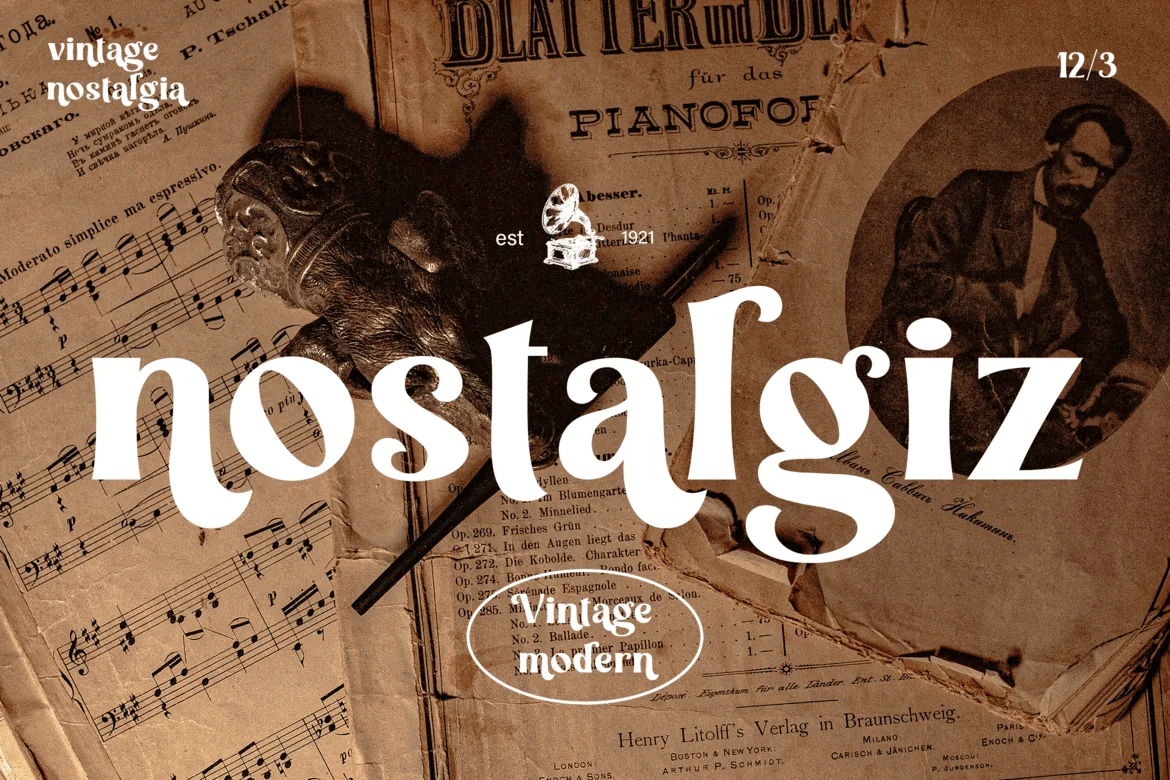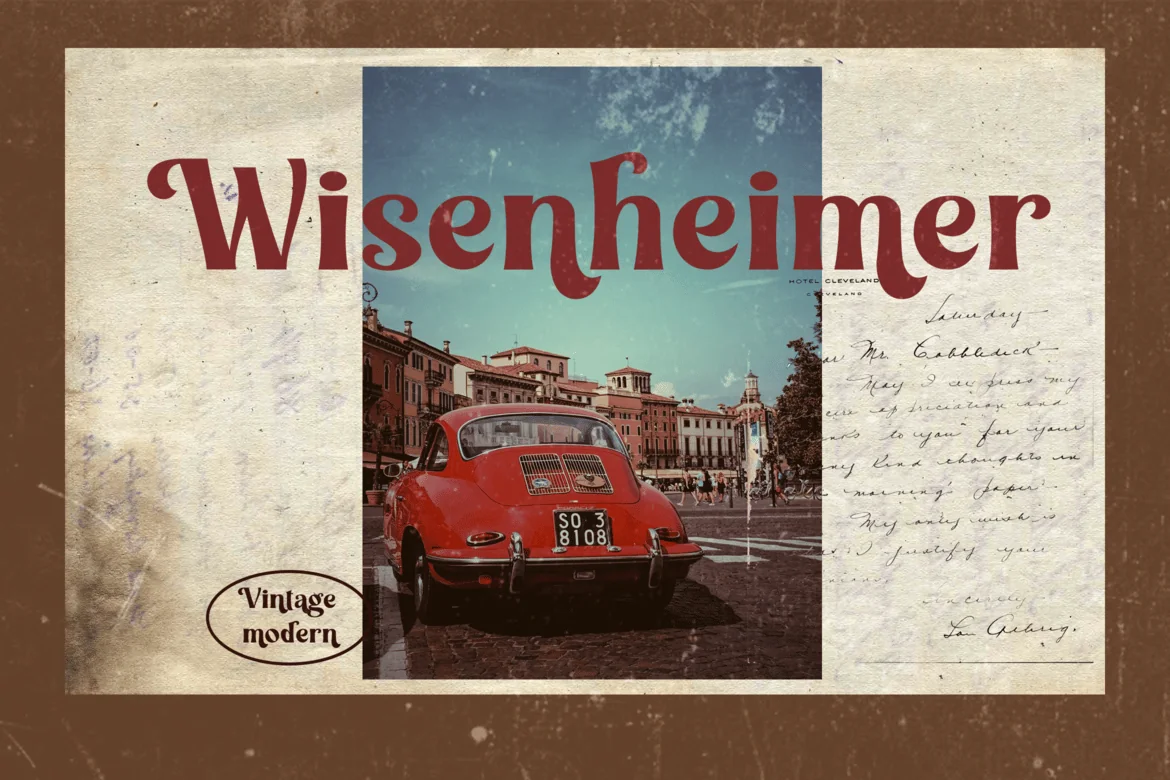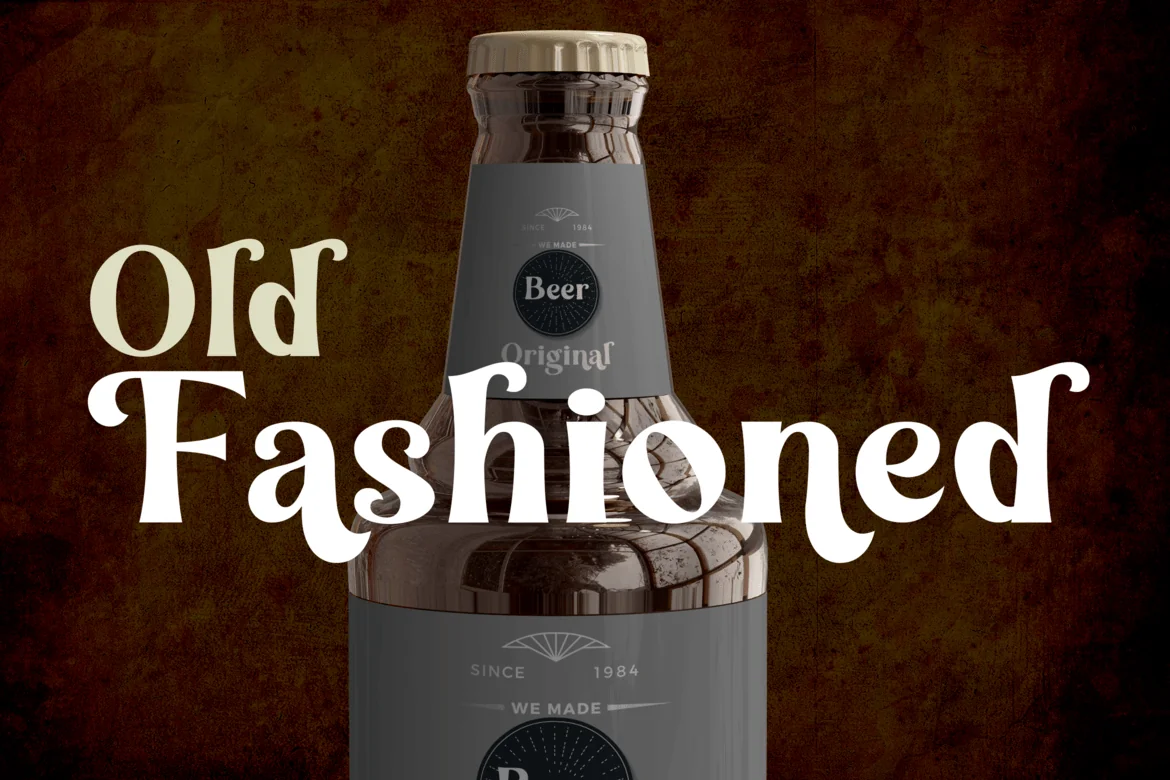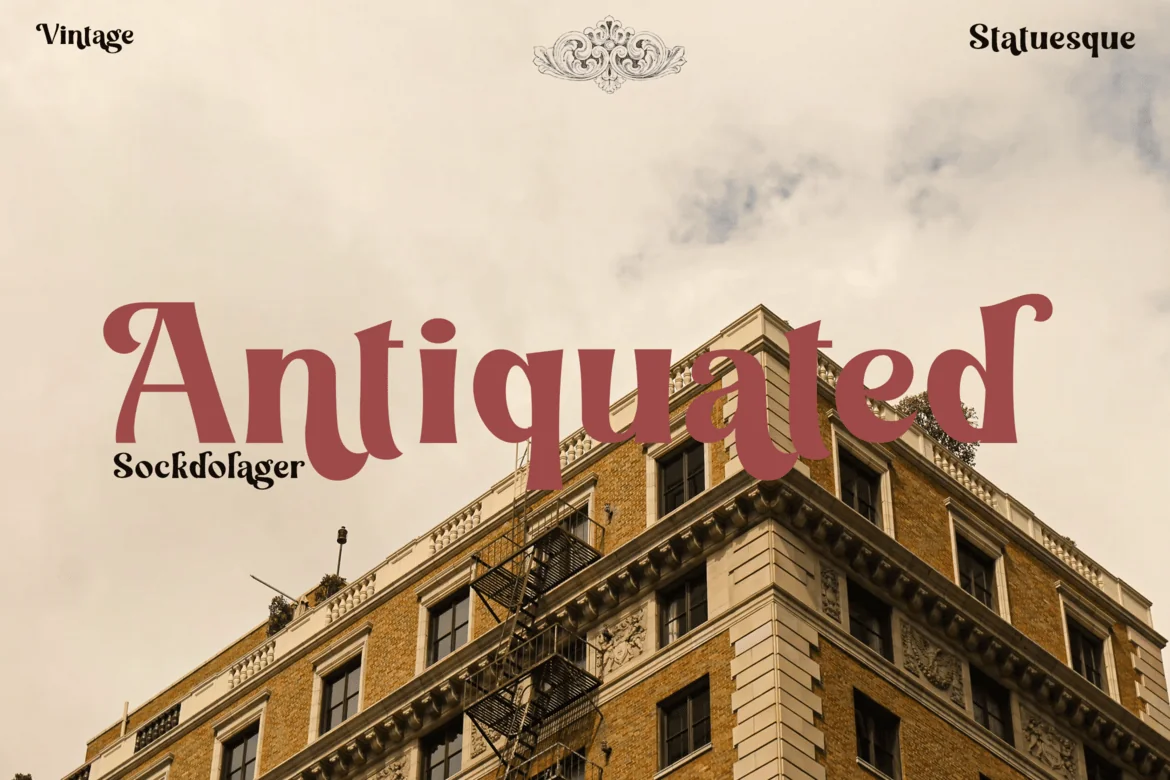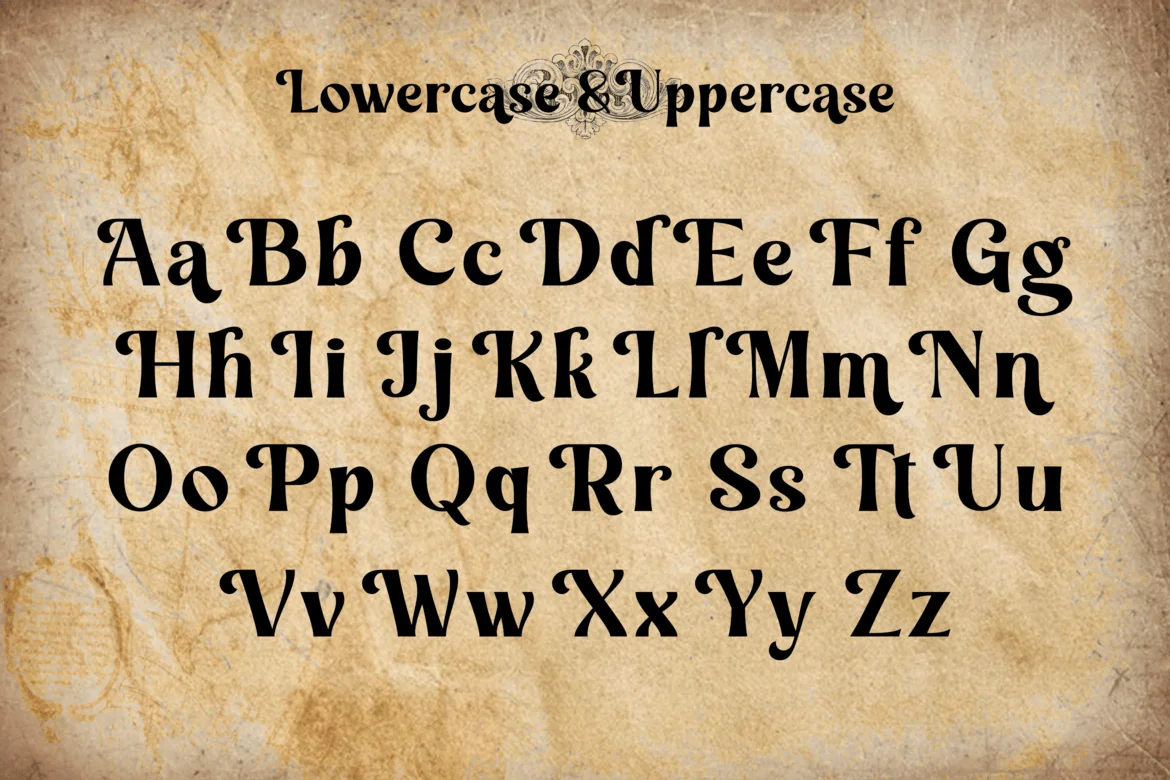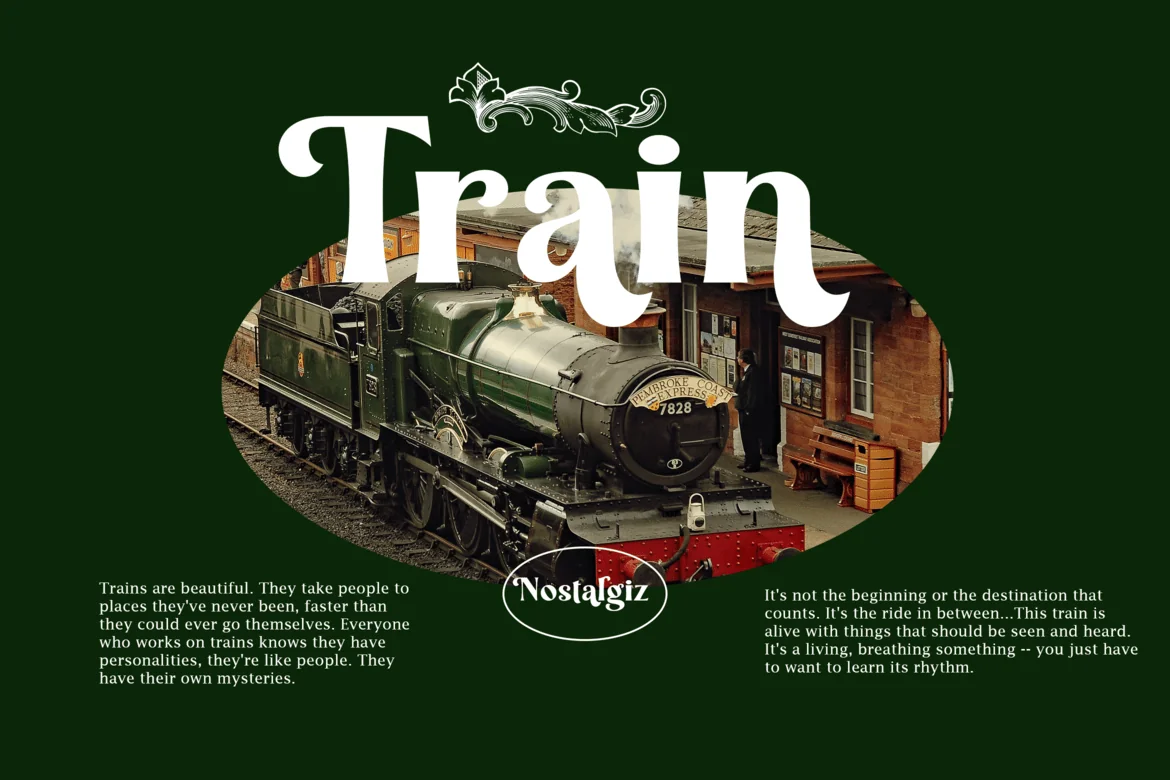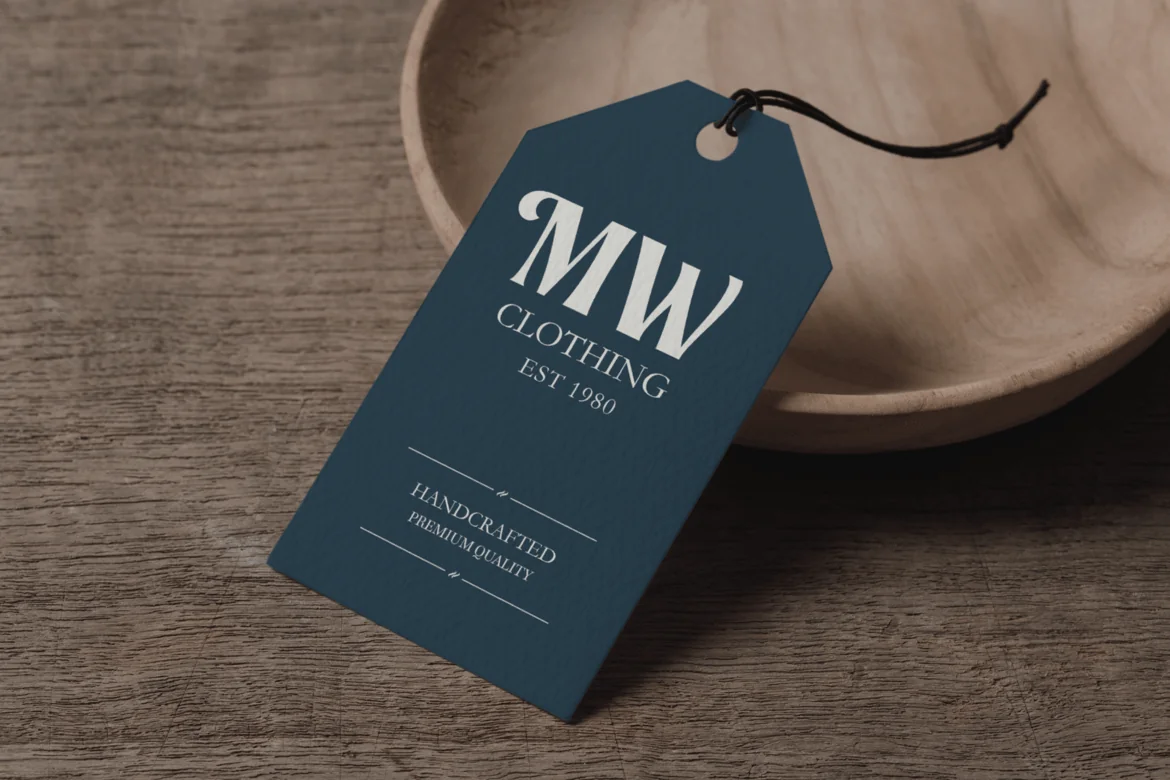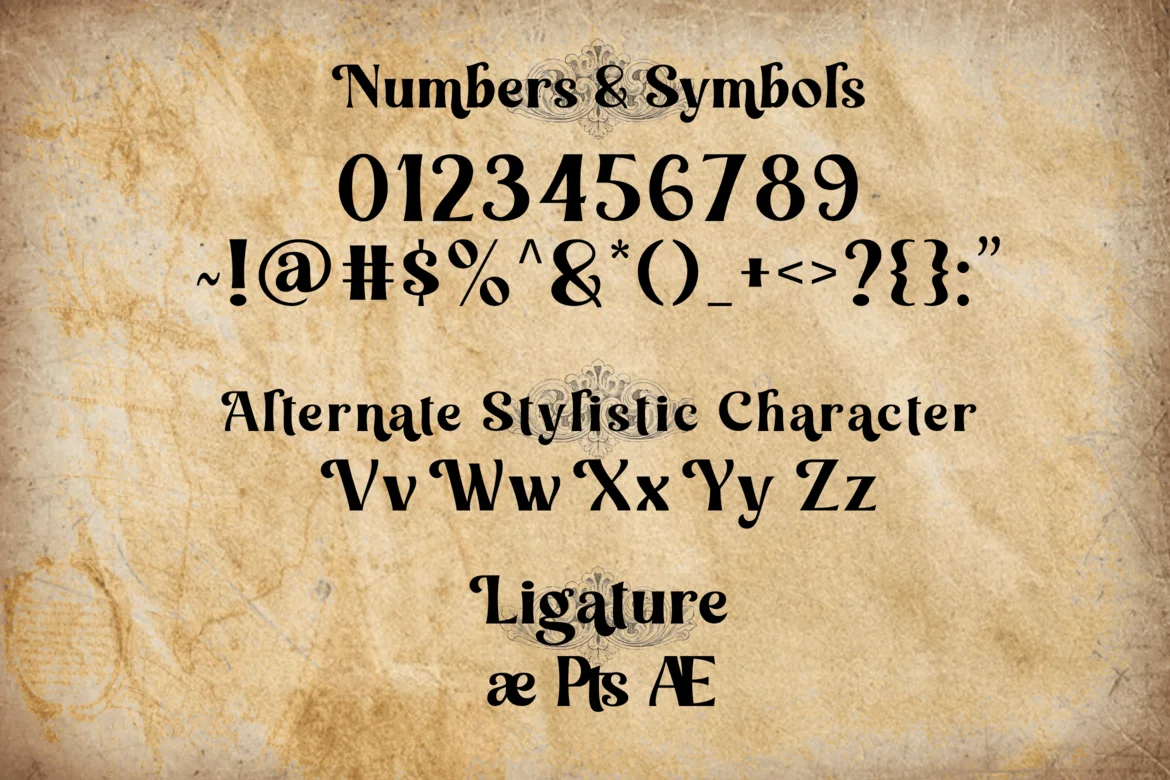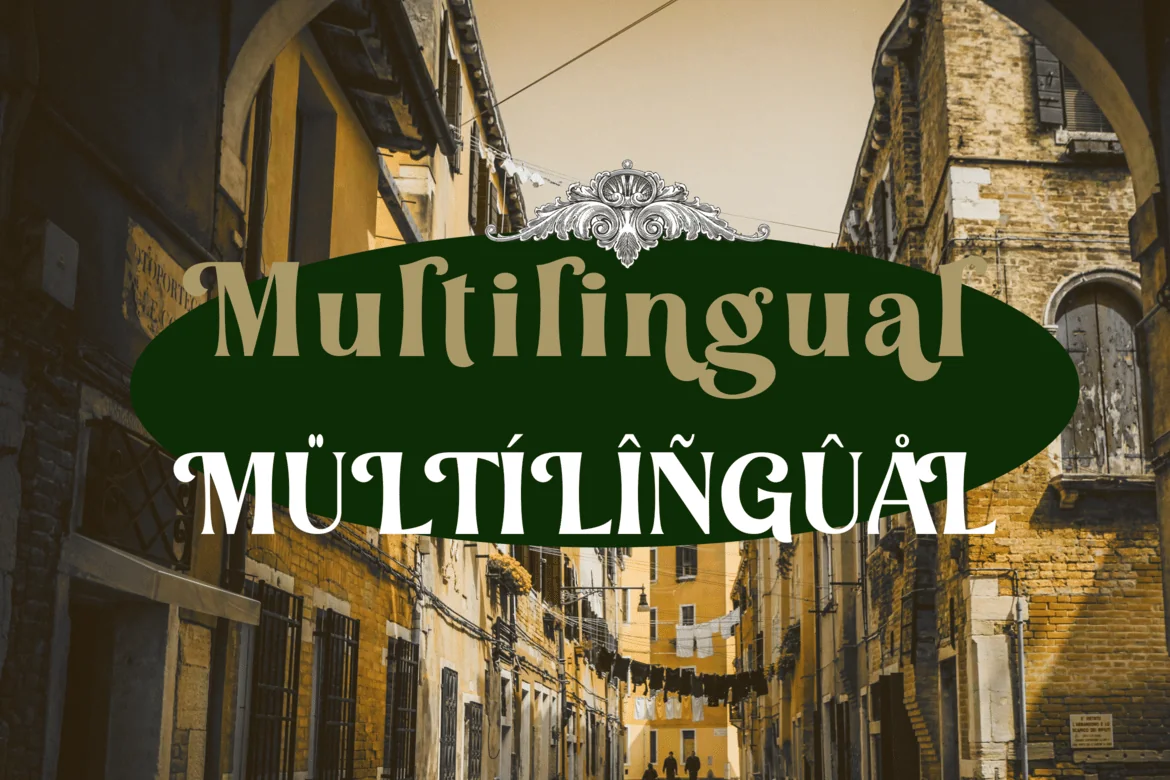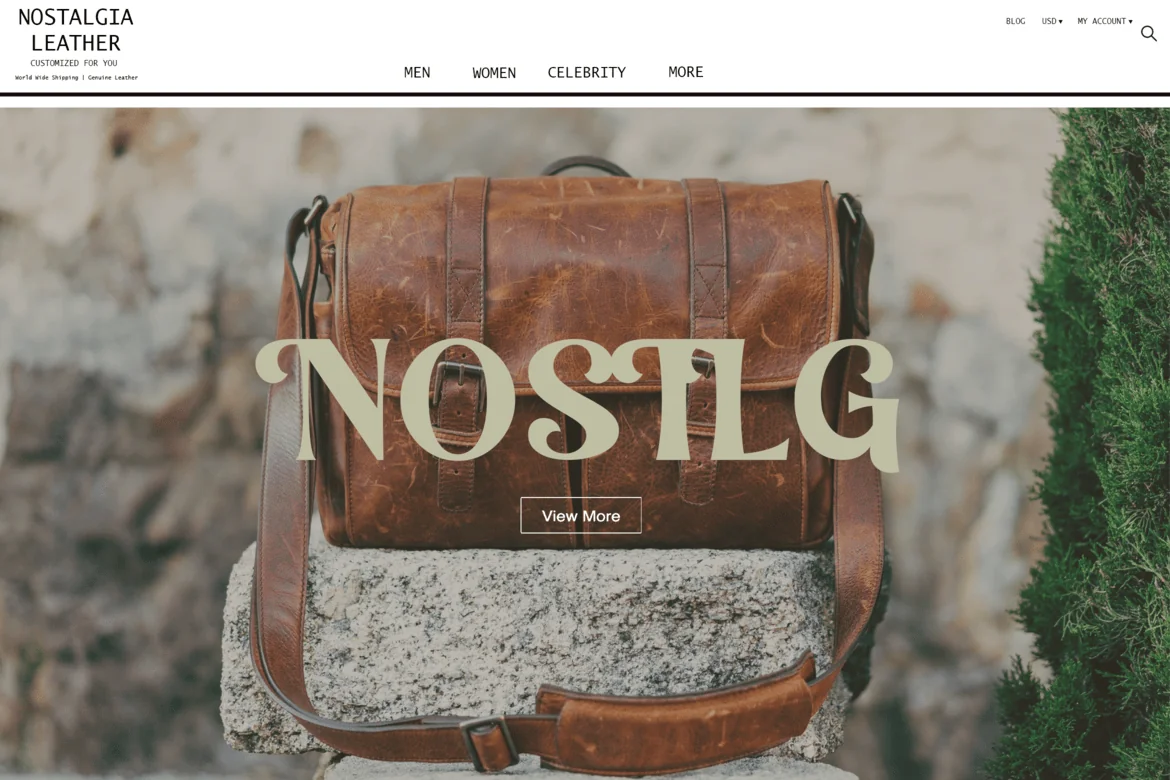
Vintage Modern Font
Want to give your design a bit of that vintage look we all love? Great idea, because the right font can change the way people see your brand.
Introducing Nostalgiz – a Vintage Modern Font.
Whether you’re designing presentations, ads, social media campaigns, or merchandise, Nostalgiz can step up to the task. Try it out and see what a difference a unique font can make.
- Multilingual & Ligature Support
- Full sets of Punctuation and Numerals